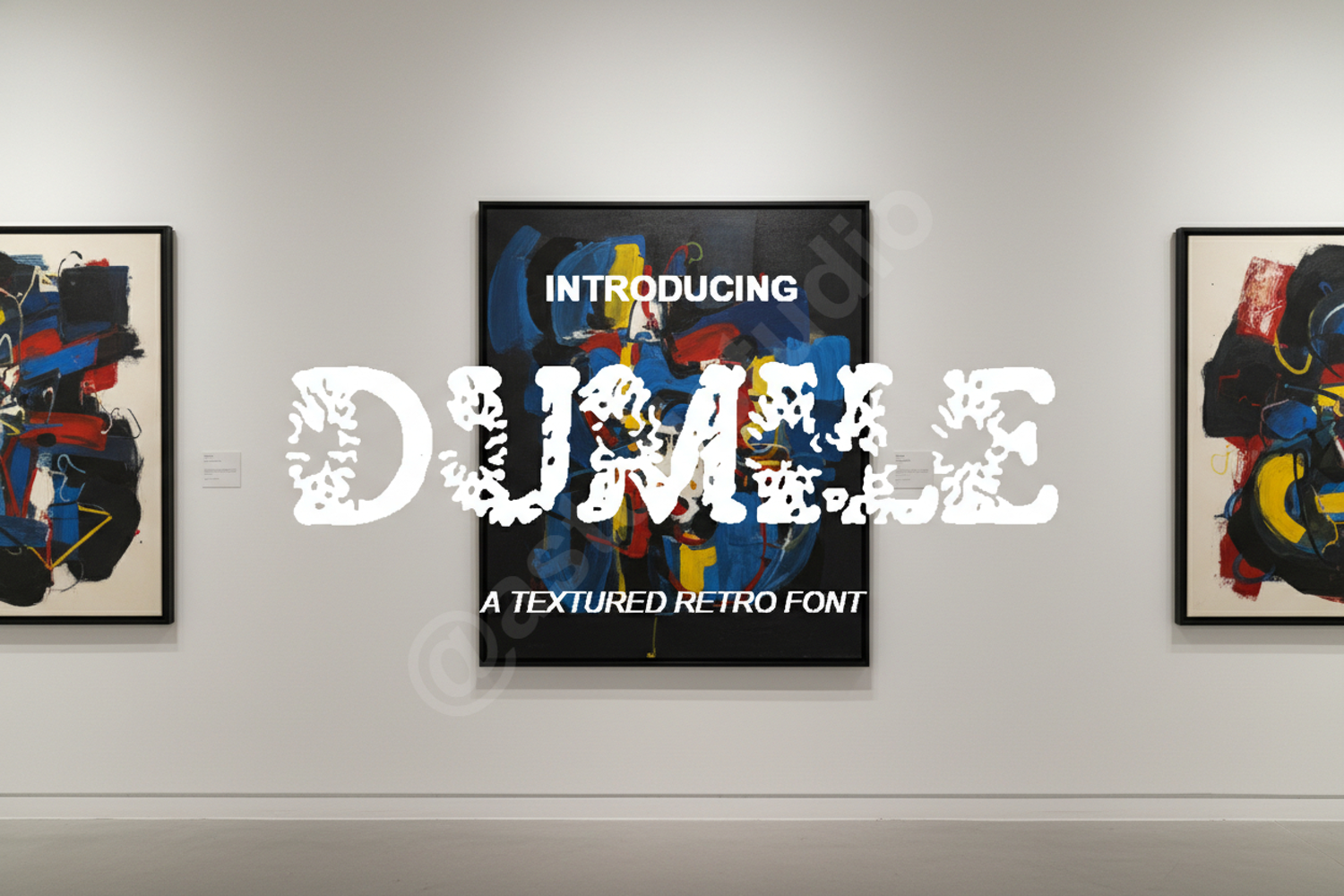
Dumile - Sophisticated Modern Serif Typeface
Dumile
Elevate your creative projects with Dumile, a sophisticated modern serif typeface that blends timeless elegance with a contemporary edge. Designed with precision and a focus on high-end aesthetics, Dumile offers a unique personality that makes it stand out in any design landscape. Whether you are working on a luxury brand identity or a minimalist editorial layout, this font provides the professional touch your work deserves.
- Luxury Branding: Create unforgettable logos and brand identities for high-end clients.
- Wedding Stationery: Add a touch of class to invitations, menus, and place cards.
- Editorial Design: Perfect for magazine headers, book covers, and sophisticated layouts.
- Social Media: Design eye-catching quotes and promotional graphics that demand attention.
- Product Packaging: Enhance your physical products with premium typography that speaks to quality.
- Web Design: Ideal for clean, readable headers and professional landing pages.